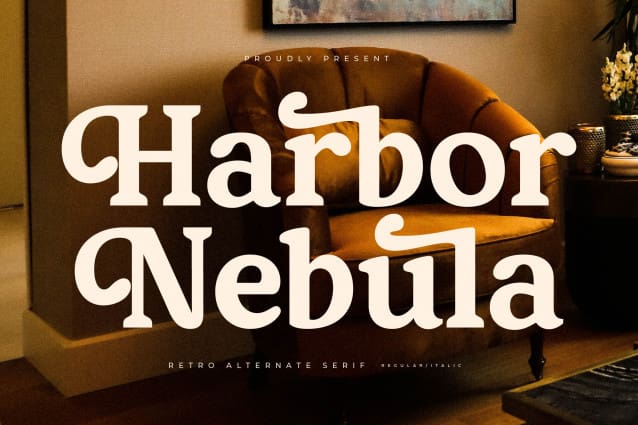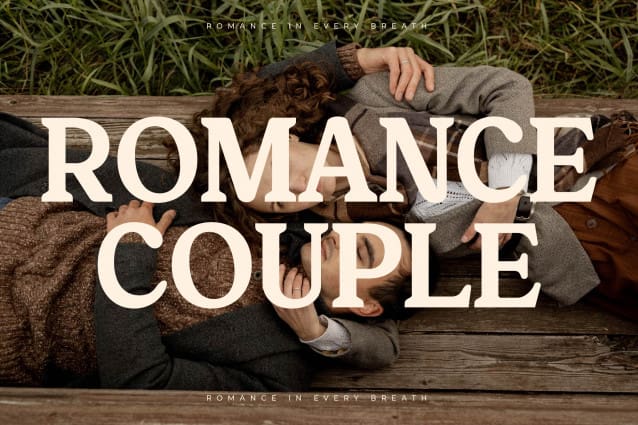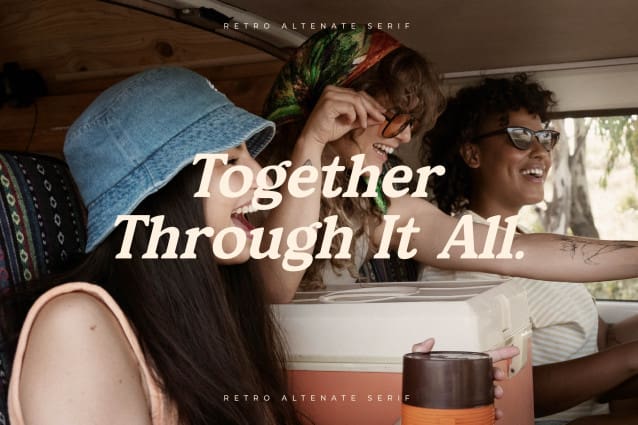
Harbor Nebula Font
Harbor Nebula Font – Retro Alternate Serif , from Letterena, is a Luxury Serif font, suitable for any projects such as: logos, branding projects, homeware designs, product packaging, mugs, quotes, posters, shopping bags, t-shirts, book covers, name card, invitation cards, greeting cards, label, photography, watermark, special events, and all your other luxury and beautiful projects that need a Luxury Serif taste.